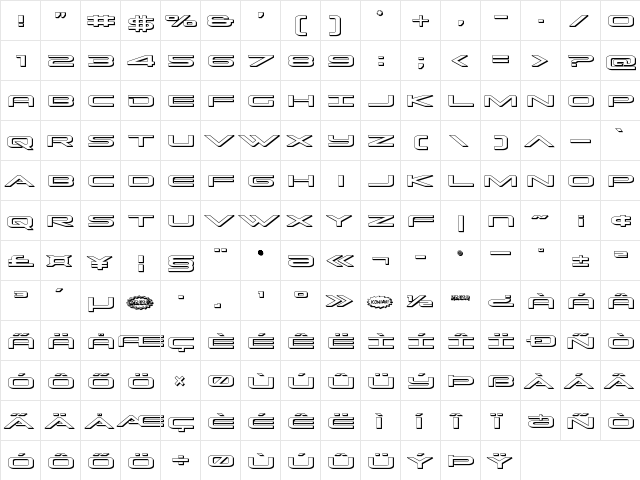
Grand Sport 3D Regular
Design Context for Grand Sport 3D Typeface
Grand Sport 3D has the bold swagger of sports branding: strong, assertive letterforms designed to dominate headlines and jerseys alike.
A natural choice for gym brands, fantasy sports, jersey lettering, and action-driven headlines.
Pro Tip: Use Grand Sport 3D in all-caps headlines where its athletic energy can fully express itself. Pair with a solid, simple sans for supporting text.